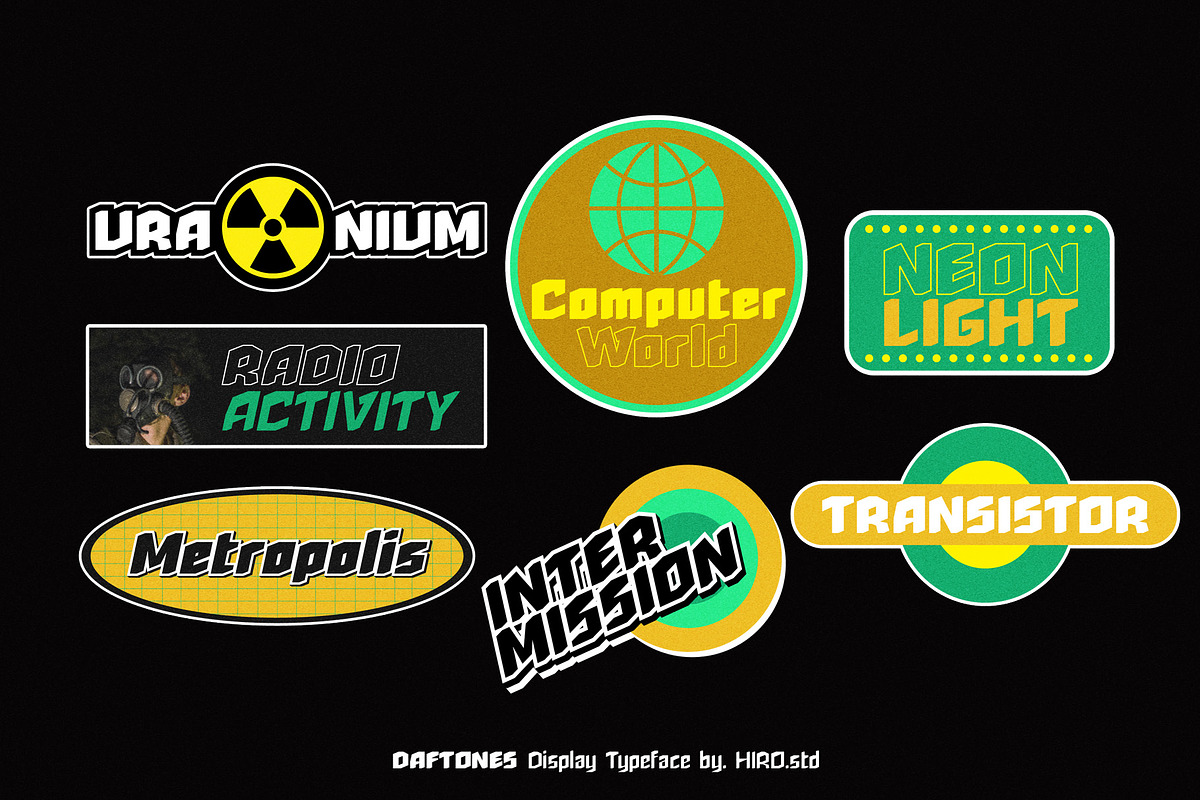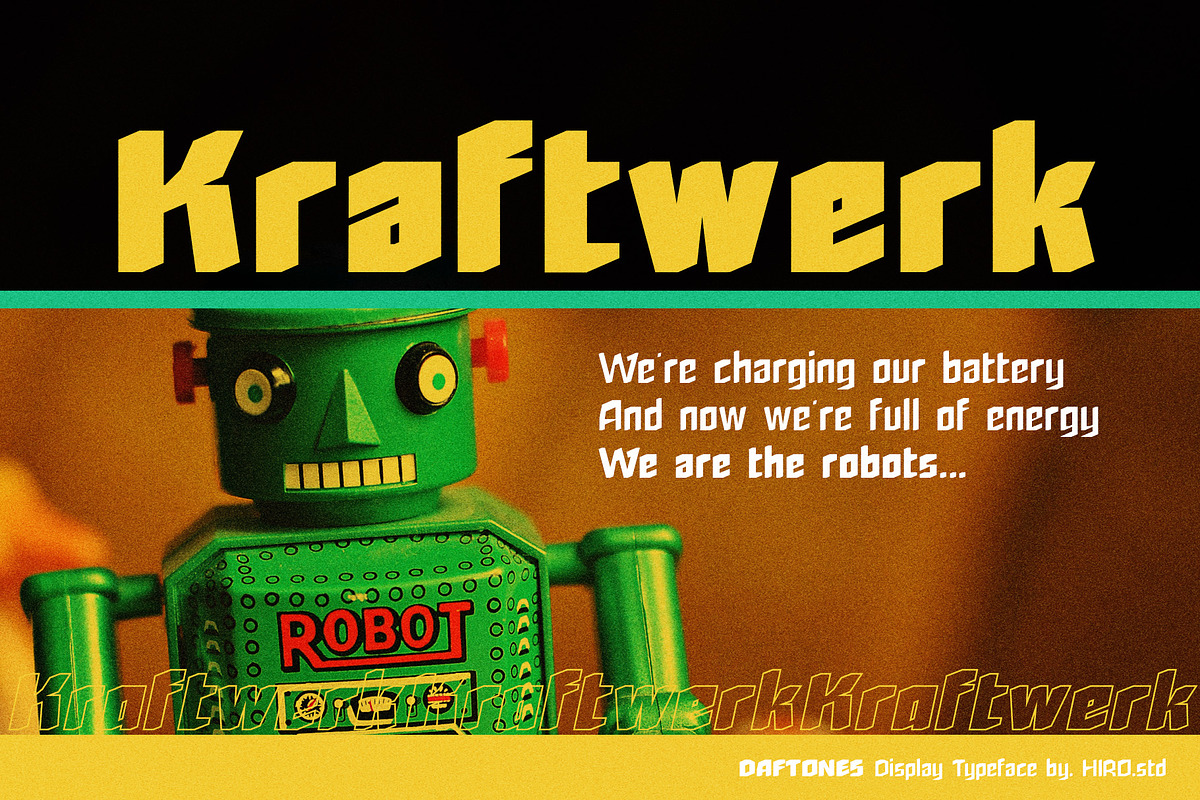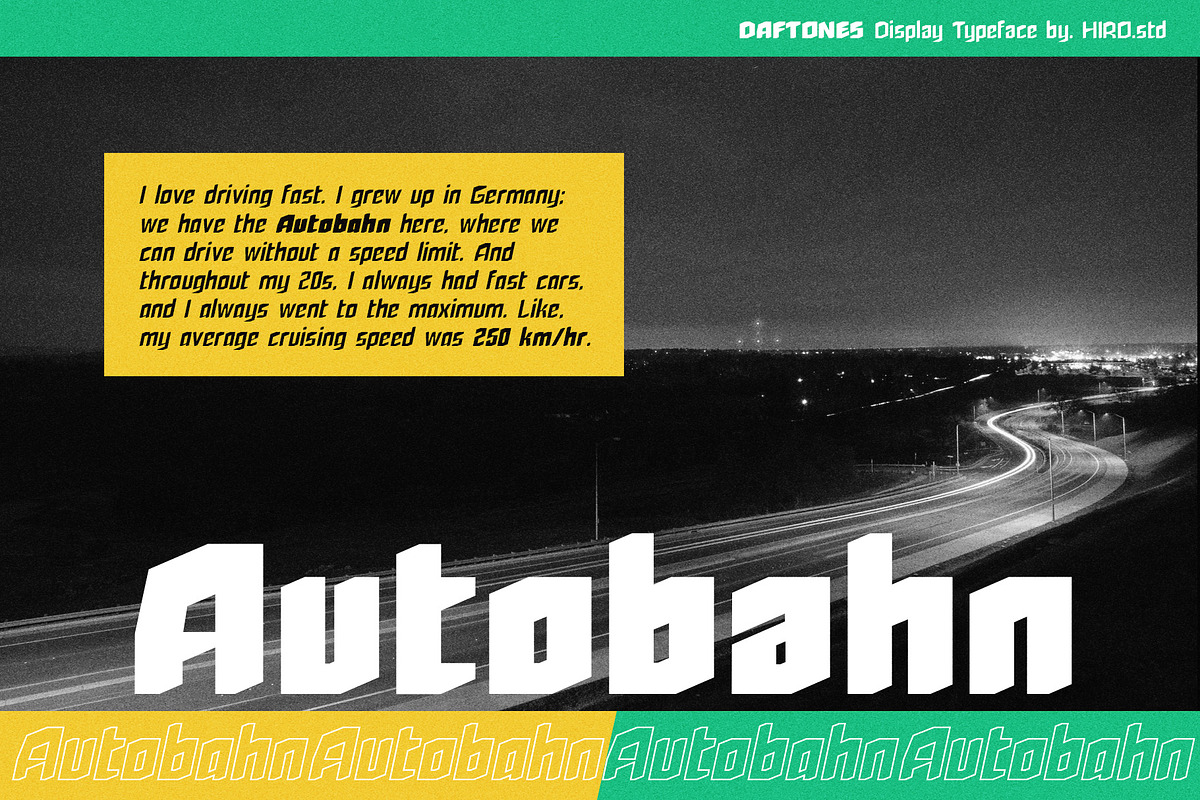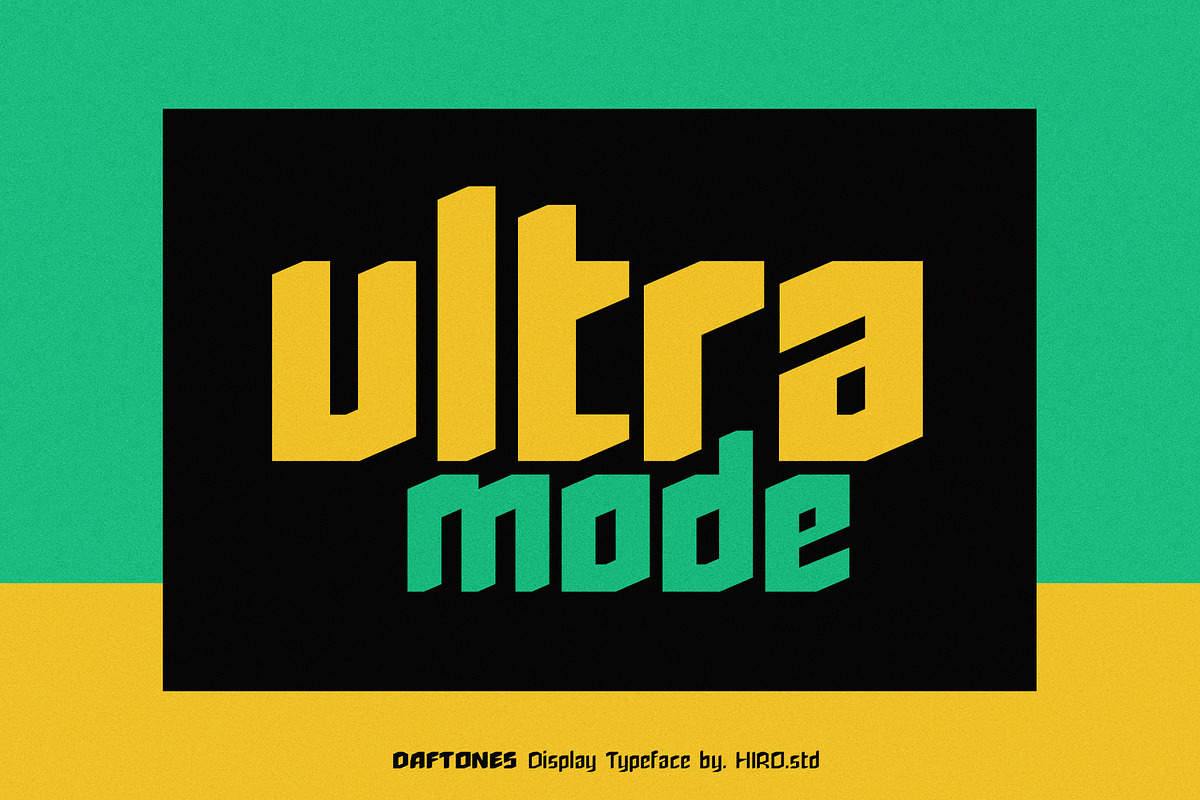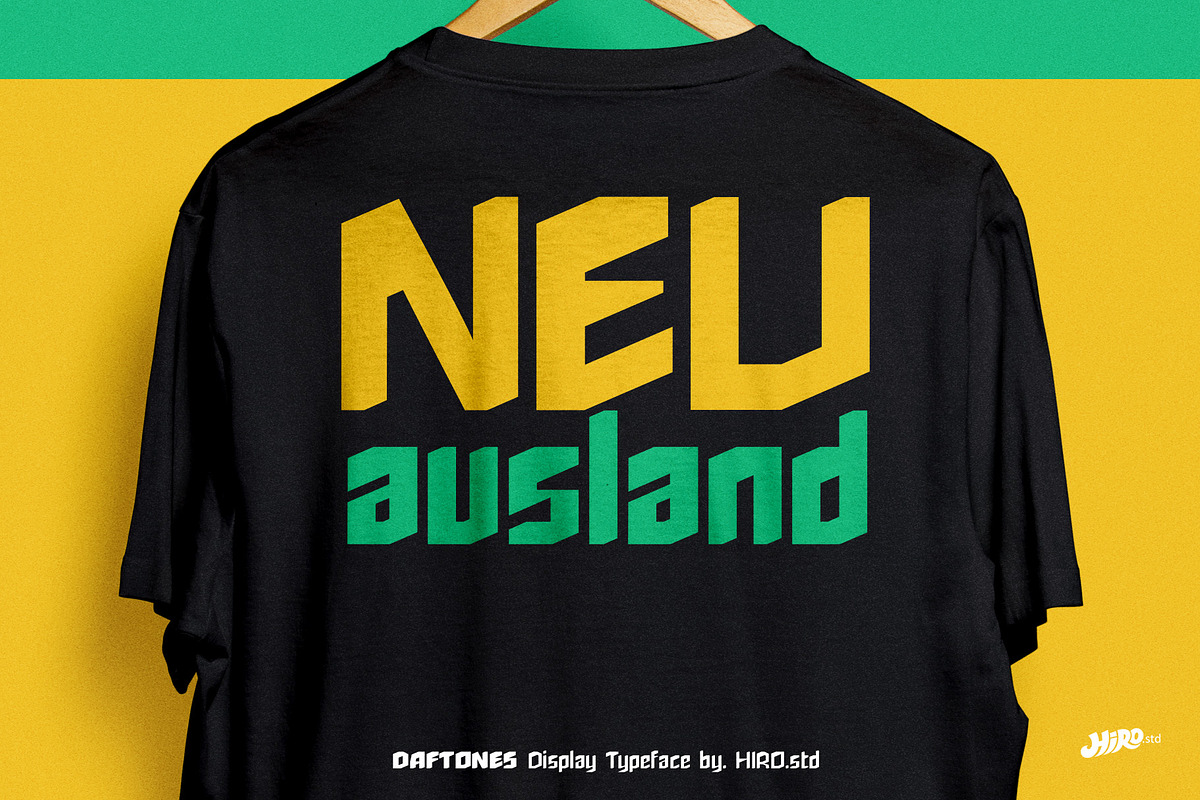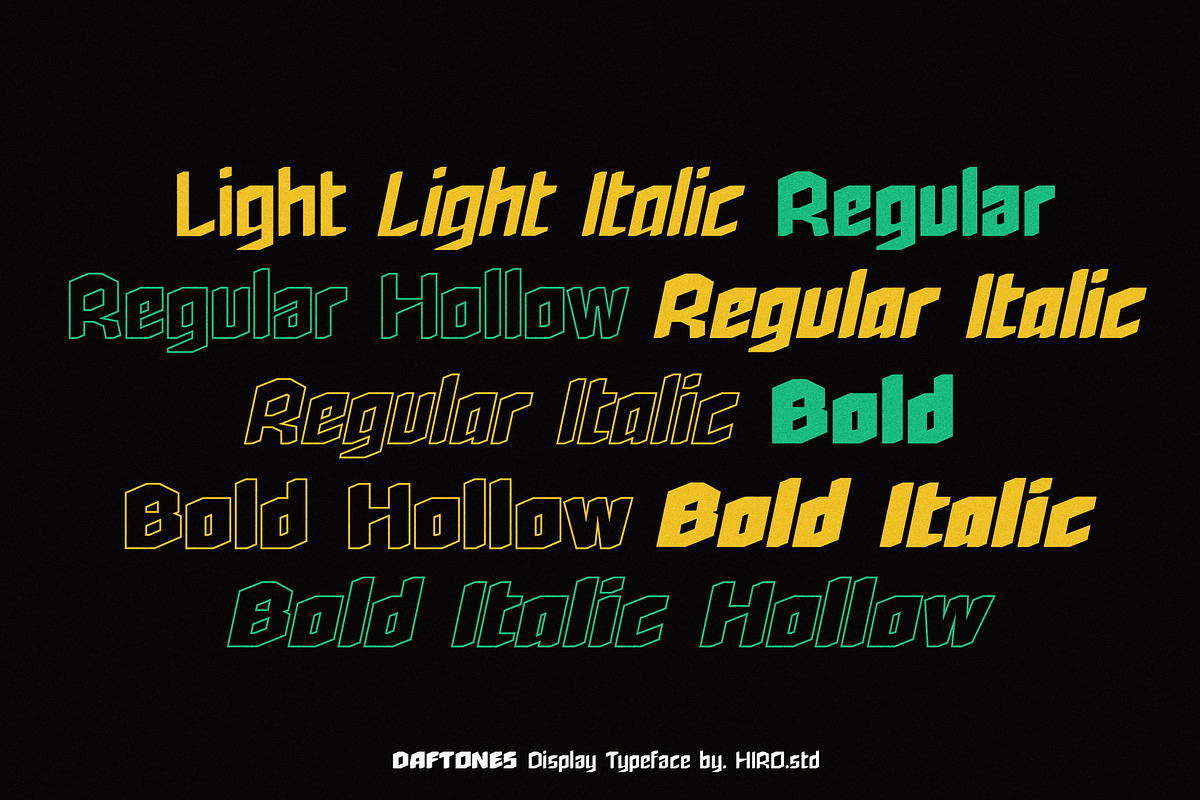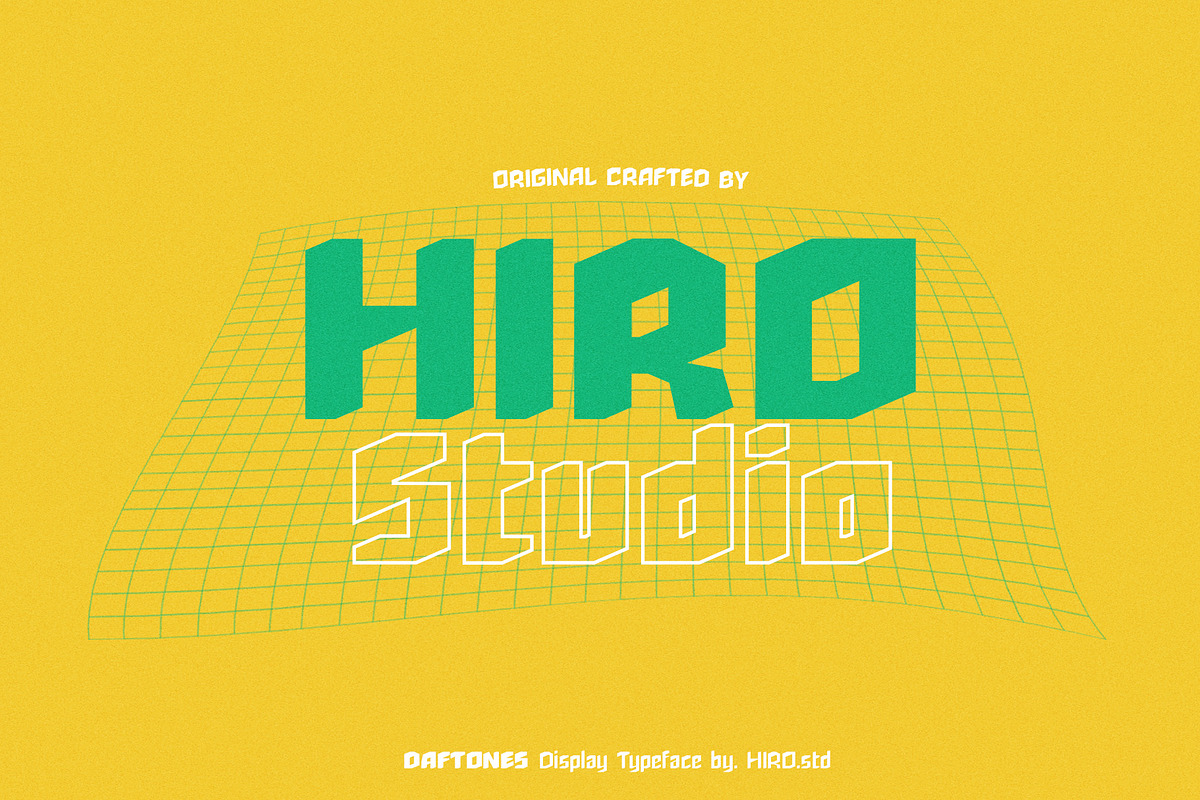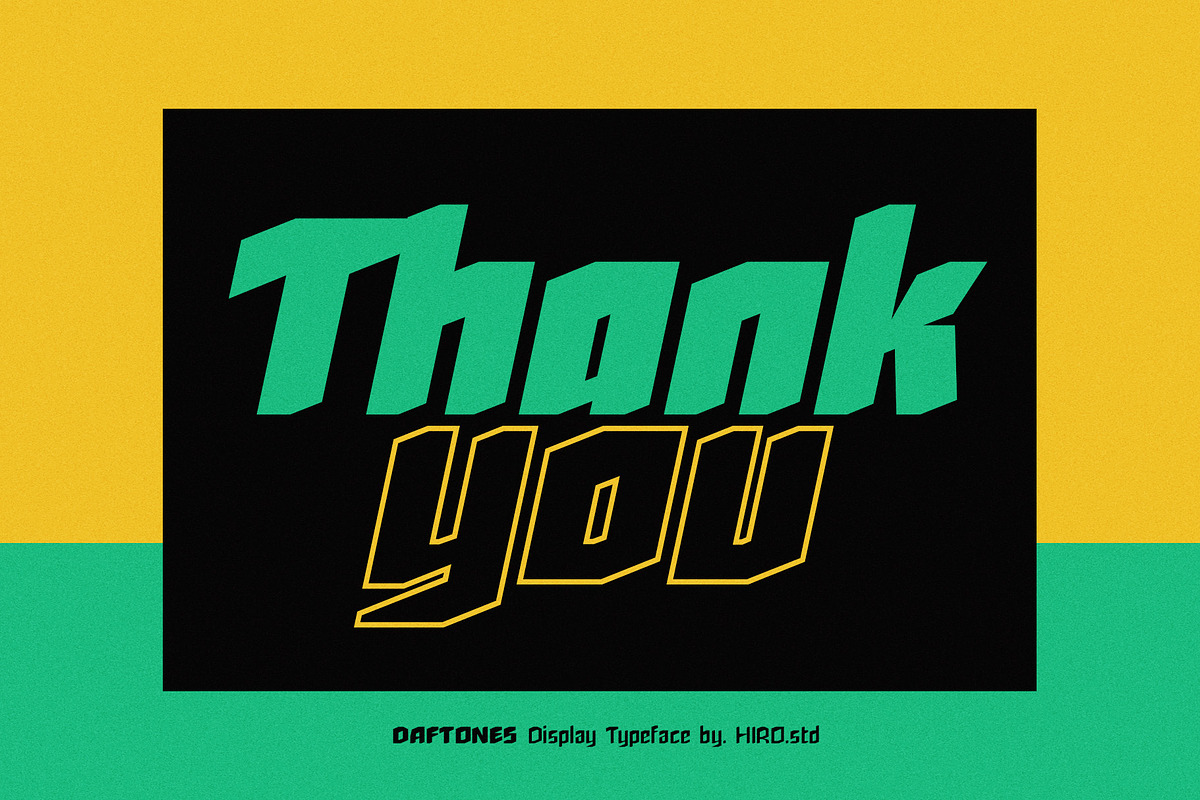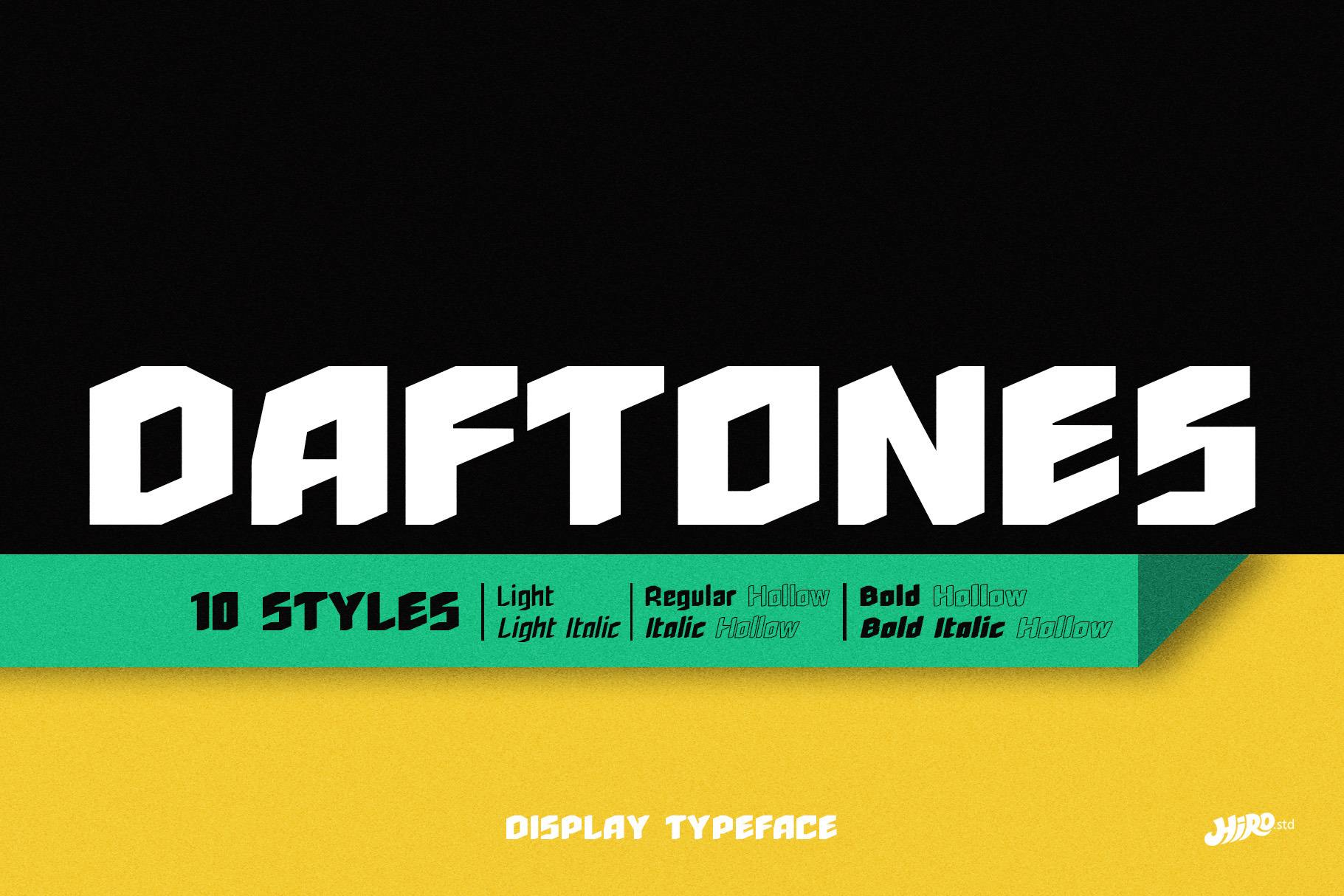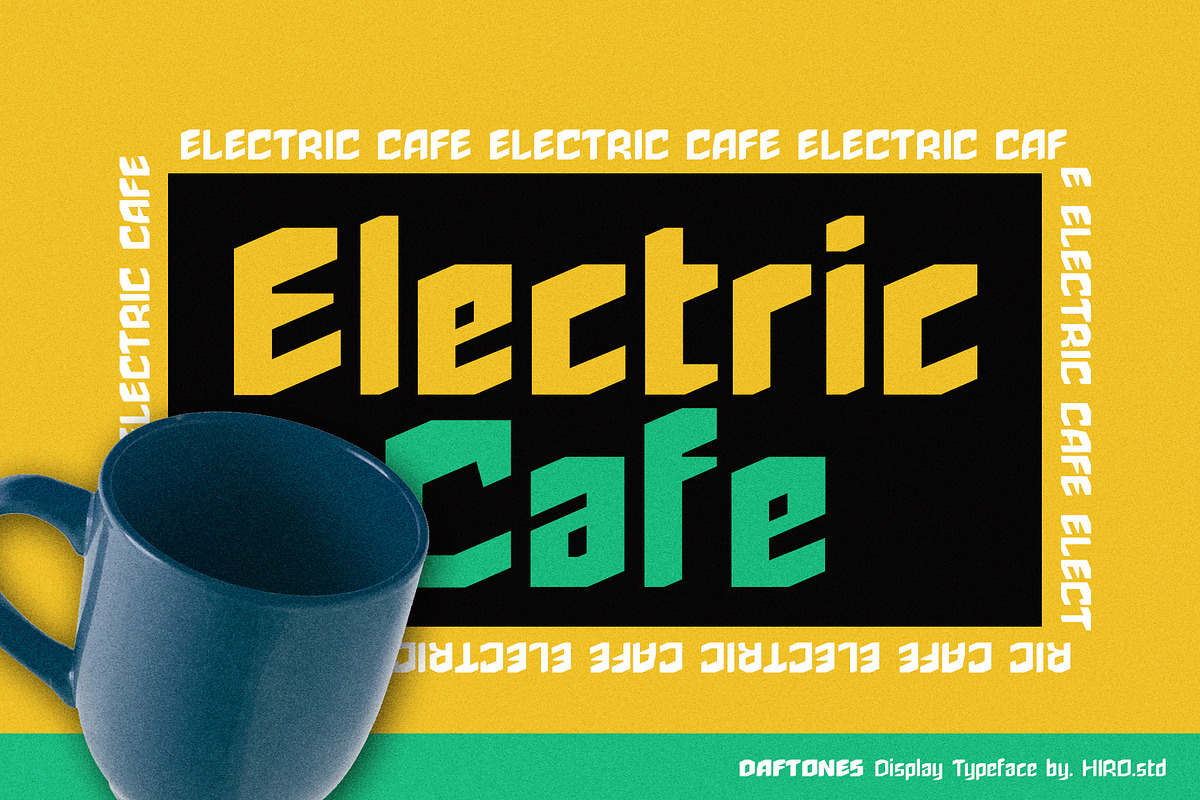
Daftones - Display Typeface
Daftones is a Display Typeface
(Light, Light Italic, Regular, Regular Italic, Regular Hollow, Regular Italic Hollow, Bold, Bold Italic, Bold Hollow, Bold Italic Hollow).
This font describes about stylist, modern, DIY spirit, strong, stylish, minimalist, bold, etc. Daftones inspired by the band Kraftwerk and German style.
USE Daftones Display Typeface works great in Branding, Title, Film, Packaging, T-shirt/ Apparel Design, Poster and Magazine.